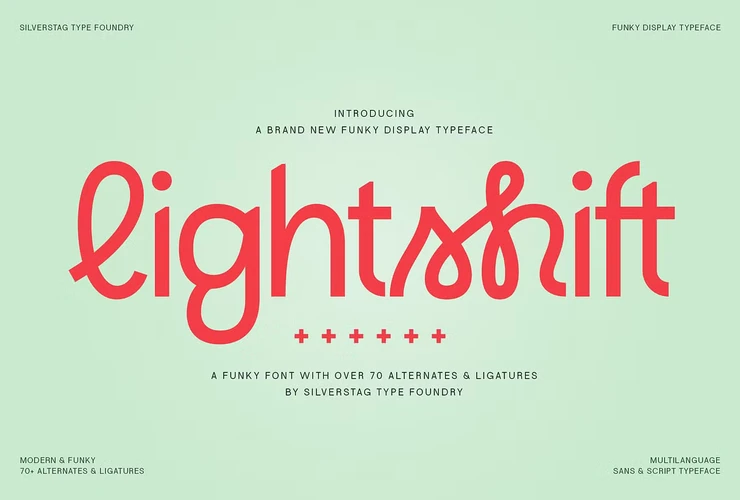
Lightshift: Illuminate Your Designs with Funky Flair
Lightshift is a playful and dynamic display typeface designed to bring a burst of personality and energy to your creative projects. With its unique blend of sans-serif simplicity and script-inspired flourishes, Lightshift is the perfect choice for designers seeking a modern yet retro aesthetic. This versatile typeface is ideal for a wide range of applications, from bold headlines to eye-catching social media graphics.
Why Choose Lightshift?
Lightshift isn’t just a font; it’s a creative tool that offers endless possibilities. Whether you’re working on branding, packaging, or promotional materials, this typeface adds a funky and modern touch that stands out. Its rounded shapes, thick strokes, and playful ligatures create a sense of fun and movement, making it perfect for projects that need a bold and contemporary look.
Key Features of Lightshift
Four Unique Styles: Lightshift comes in Regular, Round, Outline, and Round Outline variations. Each style offers a distinct flavor, giving you the flexibility to tailor your designs to your specific needs.
70+ Alternates & Ligatures: Lightshift’s extensive collection of ligatures and alternate characters allows you to create unique and eye-catching typography. Unleash your creativity and experiment with different word forms.
Multilingual Support: With support for over 90 languages, Lightshift ensures your message reaches a global audience, making it ideal for international projects.
Funky & Modern Aesthetic: Lightshift’s playful design is perfect for youthful and trendy brands. Its thick strokes and rounded shapes evoke a sense of fun and energy that captures attention.
Versatile Applications: From headlines and logos to social media graphics and product packaging, Lightshift is versatile enough to shine in various design contexts.
Perfect for:
Youthful and Trendy Brands: Lightshift’s modern aesthetic makes it ideal for brands that want to appeal to a younger, more dynamic audience.
Creative Projects: Whether it’s a poster, flyer, or website header, Lightshift adds a touch of funky flair to your designs.
Social Media Graphics: Stand out on social media with eye-catching posts that grab attention and leave a lasting impression.
Product Packaging and Merchandise: Lightshift’s bold design is perfect for packaging that demands to be noticed.
Unleash Your Creativity
Lightshift invites you to experiment and express yourself through typography. Mix and match its different styles, play with ligatures, and create typographic masterpieces that captivate and inspire. Whether you’re working on a professional project or a personal design, Lightshift is the font that will make your creativity shine.